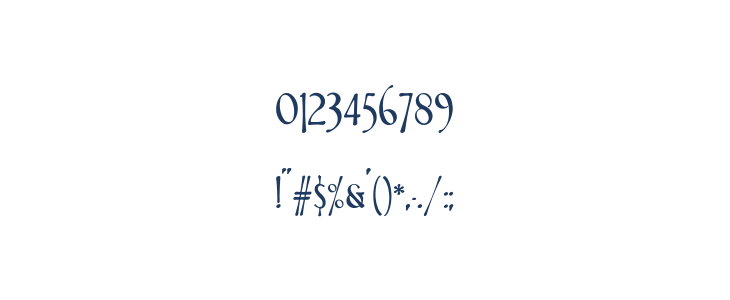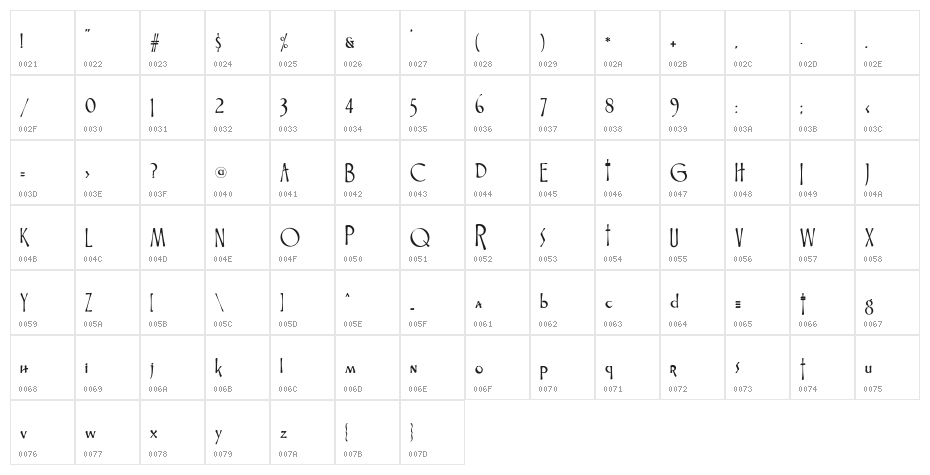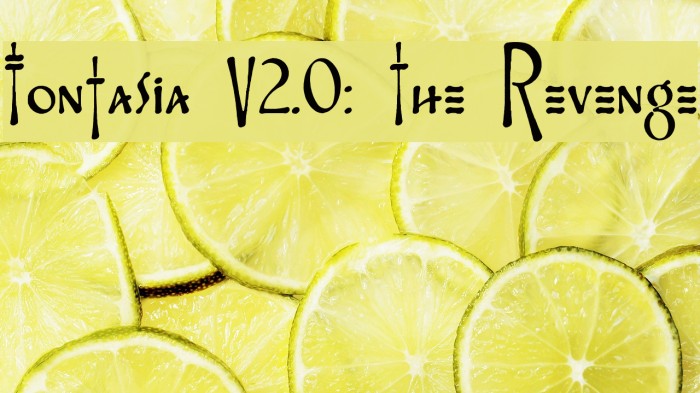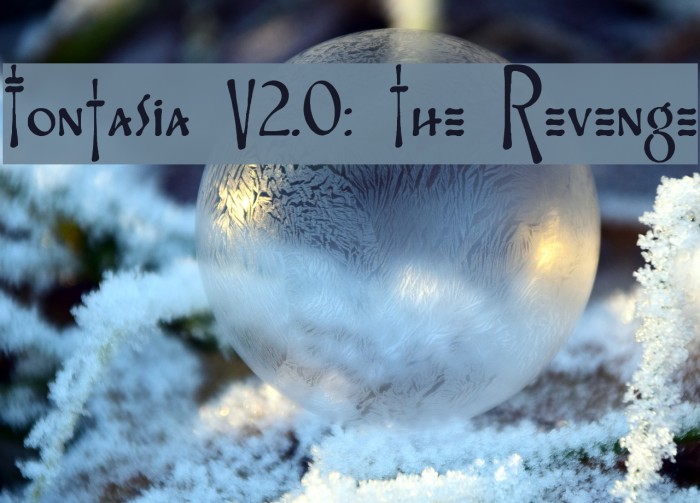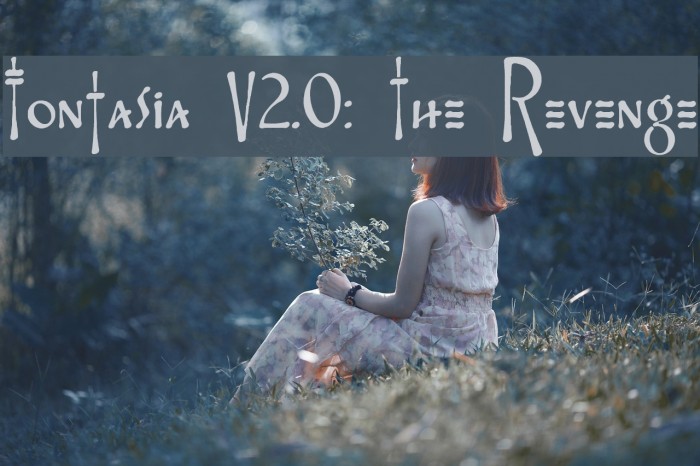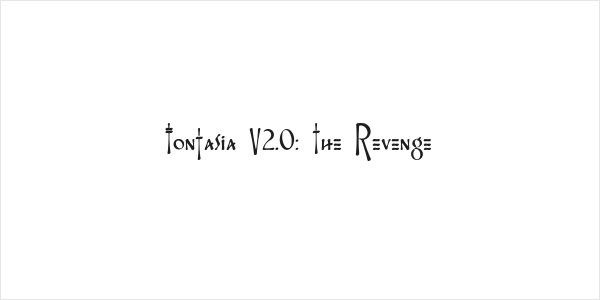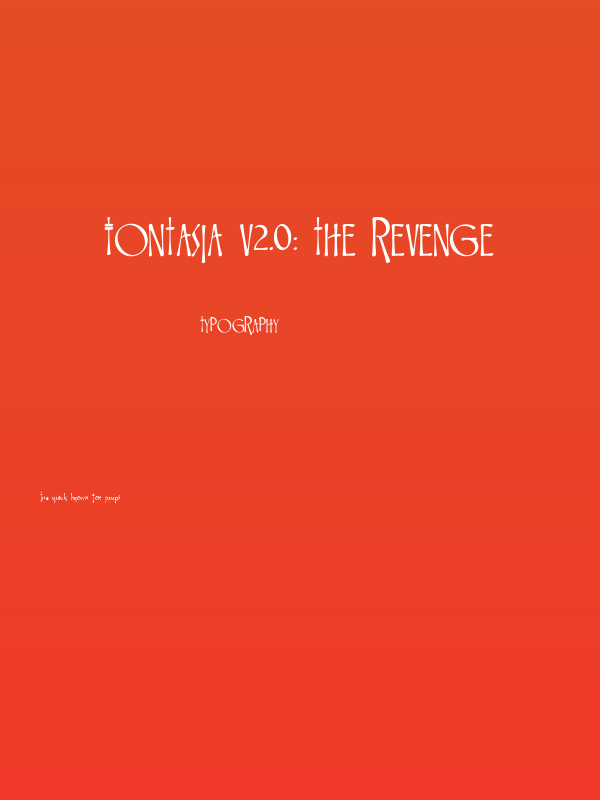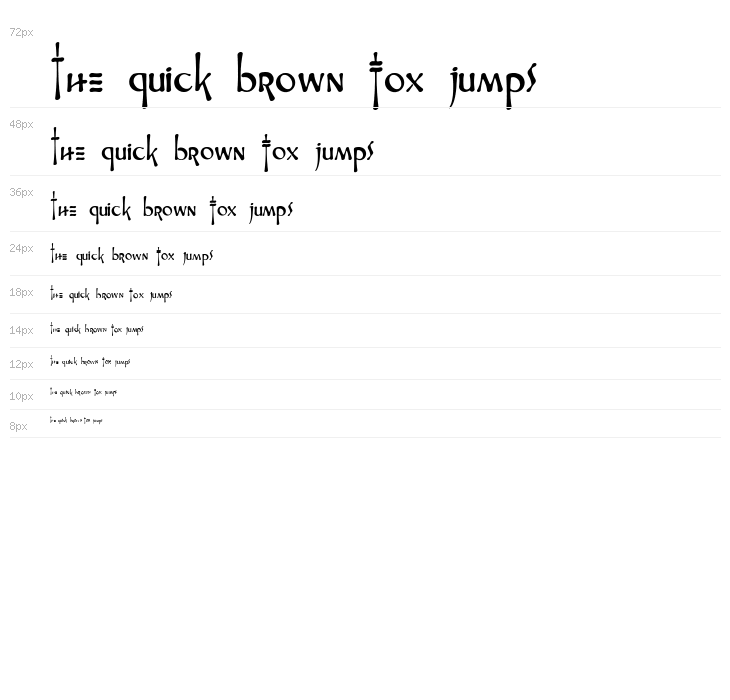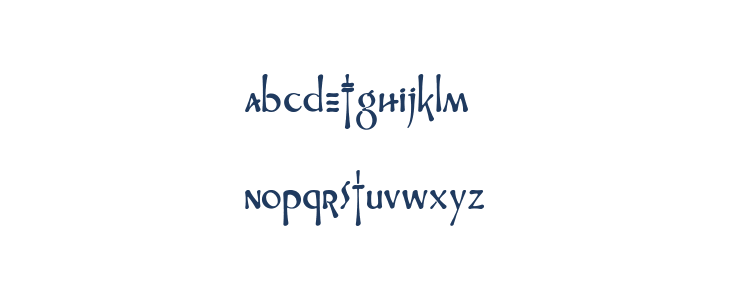
Fontasia V2.0: The Revenge Font
Fontasia V2.0: The Revenge Description
This font features a unique and artistic style, characterized by its irregular and playful letterforms. The uppercase letters exhibit a mix of sharp and rounded edges, giving them a whimsical yet slightly gothic appearance. The lowercase letters maintain this quirky style, with some characters featuring unexpected curves and angles. The numerals are consistent with the overall design, offering a distinctive look that stands out. Special characters are creatively designed, adding to the font's decorative appeal. This font is ideal for projects that require a touch of fantasy or a medieval theme.
| Proposed Projects | Ideal for fantasy-themed projects, book covers, posters, and creative branding. |